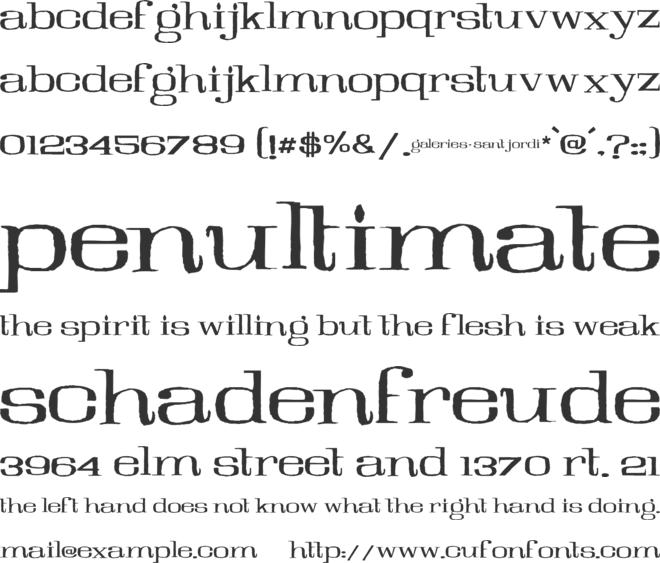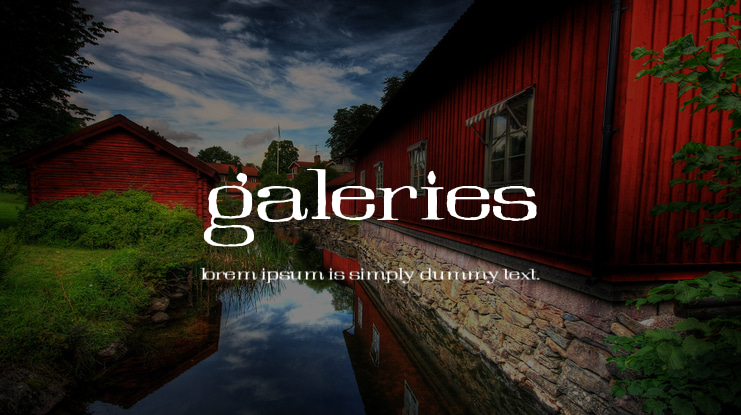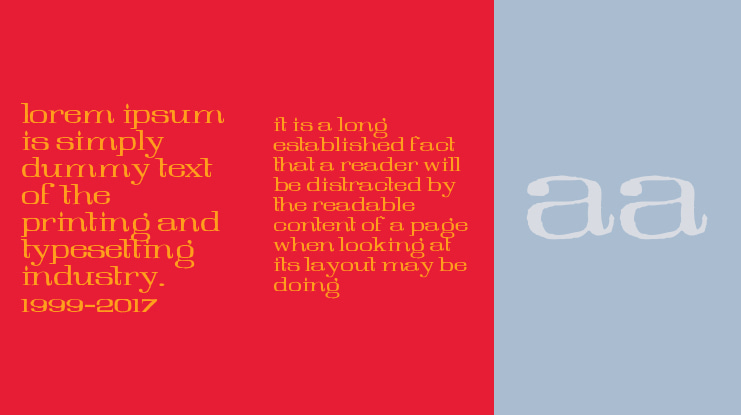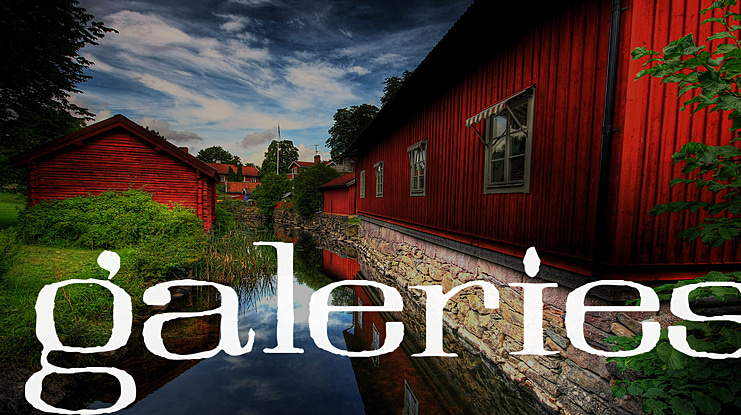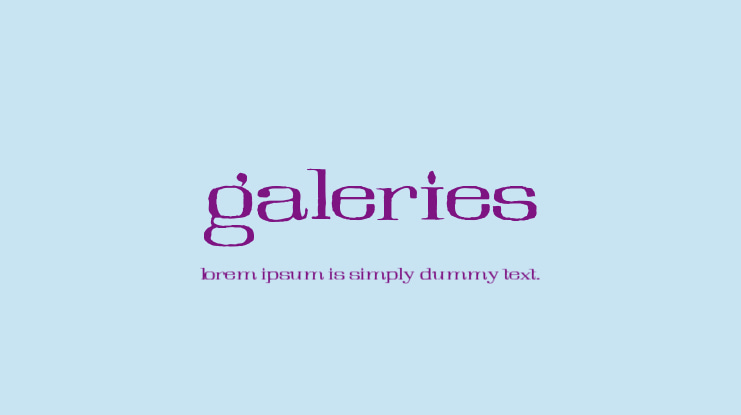
Galeries Font
Galeries font
by Mario Arturo, Barcelona, Spain. Inspired on a type that appeared on a receipt from a store called Galeries Sant Jordi \(c. late 1960's\) in Pineda de Mar, Catalunya, Spain. Aug 2001